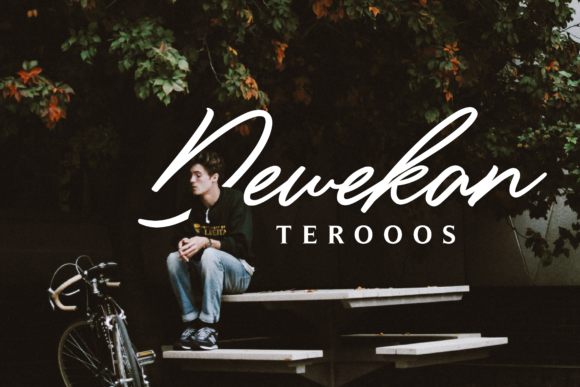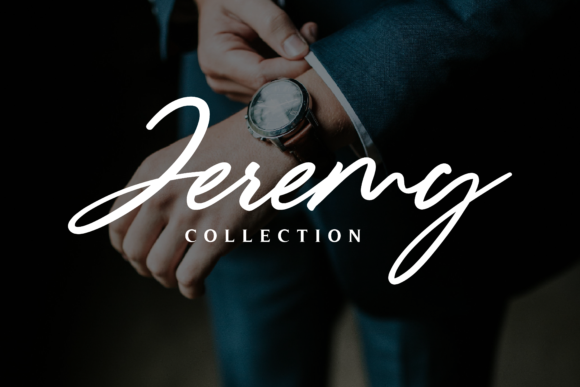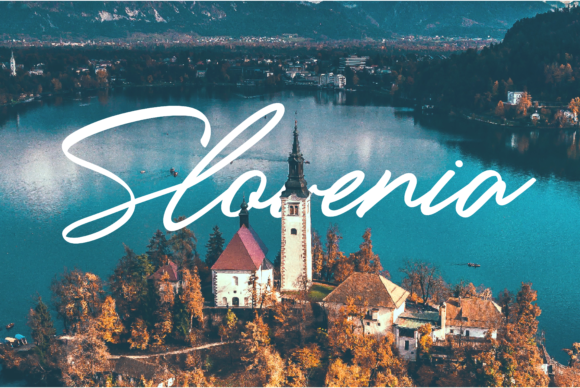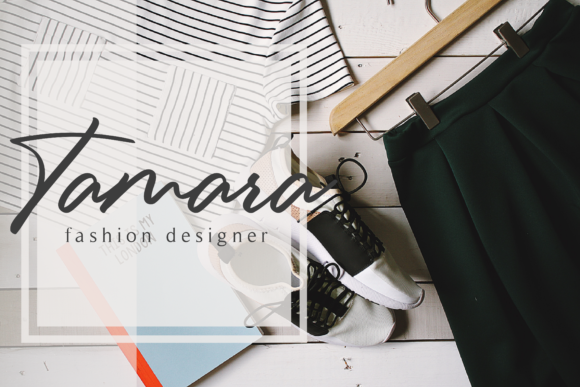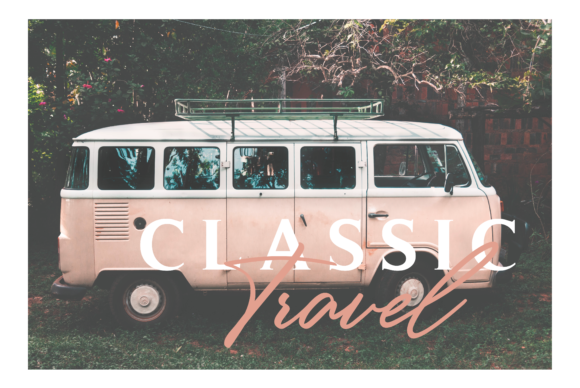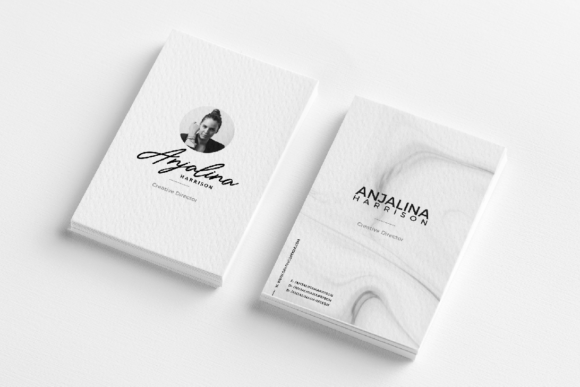
The Dallard Font: Elevate Your Design with Modern Calligraphy
The Dallard font is a stunning modern calligraphy font that has taken the design world by storm. Its beautiful handwritten style makes it an ideal choice for a wide range of applications, from watermarks and signatures to logos, business cards, and branding. In this article, we’ll dive into the world of the Dallard font, exploring its features, uses, and benefits for designers and crafters.
What is the Dallard Font?
The Dallard font is a modern calligraphy font that boasts a unique and elegant handwritten style. Its fluid strokes and cursive flair make it perfect for adding a touch of sophistication to any design project. Whether you’re a professional designer or a crafty DIY enthusiast, the Dallard font is sure to impress.
Features of the Dallard Font
- Modern Calligraphy Style: The Dallard font features a modern calligraphy style that is both elegant and sophisticated.
- Handwritten Look: Its handwritten style gives the font a personal and unique touch, making it perfect for adding a human element to your designs.
- Versatile: The Dallard font can be used for a wide range of applications, from watermarks and signatures to logos, business cards, and branding.
- Easy to Read: Despite its cursive nature, the Dallard font is easy to read, making it perfect for body text and headings.
Uses of the Dallard Font
The Dallard font is incredibly versatile, and its uses are endless. Here are some popular ways designers and crafters use this beautiful font:
- Watermarks: Add a touch of elegance to your photos and designs with the Dallard font watermark.
- Signatures: Create stunning digital signatures that make a lasting impression.
- Logos: Use the Dallard font to create unique and memorable logos for your brand.
- Business Cards: Elevate your business cards with the Dallard font, adding a touch of sophistication and professionalism.
- Branding: Use the Dallard font consistently across your branding materials to create a cohesive and recognizable identity.
Benefits of Using the Dallard Font
The Dallard font offers numerous benefits for designers and crafters, including:
- Unique and Memorable: The Dallard font helps you create unique and memorable designs that stand out from the crowd.
- Elegant and Sophisticated: Its modern calligraphy style adds a touch of elegance and sophistication to any design project.
- Easy to Use: The Dallard font is easy to use and works seamlessly with popular design software.
- High-Quality: The font is high-quality, ensuring crisp and clear rendering on various devices and platforms.
Tips for Using the Dallard Font
To get the most out of the Dallard font, here are some tips to keep in mind:
- Pair with Other Fonts: Experiment with pairing the Dallard font with other fonts to create stunning contrast and visual interest.
- Use for Headings and Titles: Use the Dallard font for headings and titles to add a touch of elegance and sophistication.
- Experiment with Colors: Try out different colors and textures to add depth and visual interest to your designs.
The Dallard font is a stunning modern calligraphy font that offers a world of creative possibilities for designers and crafters. Its elegant handwritten style, versatility, and ease of use make it an ideal choice for a wide range of applications. Whether you’re looking to elevate your branding, create stunning watermarks, or add a touch of sophistication to your designs, the Dallard font is sure to impress. So why wait? Download the Dallard font today and take your designs to the next level!